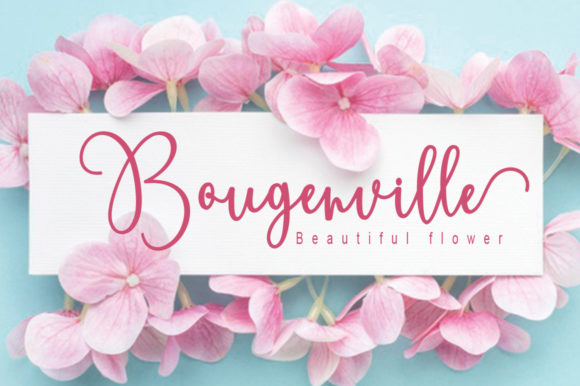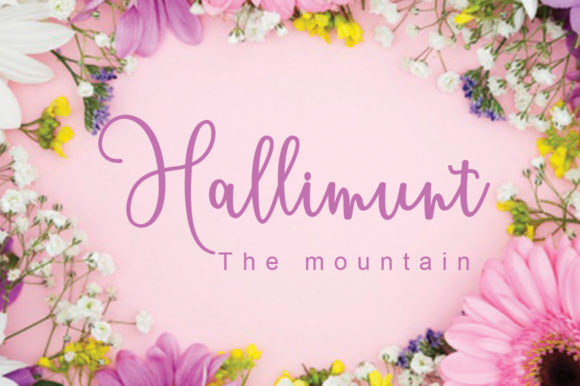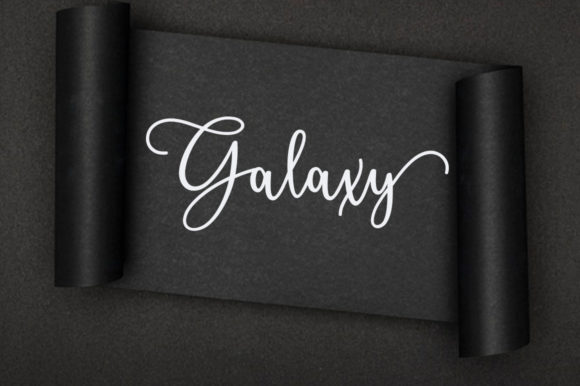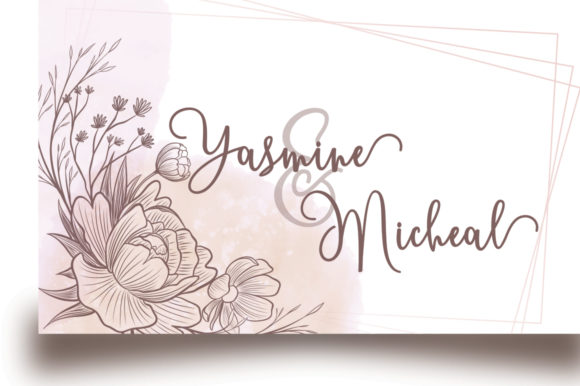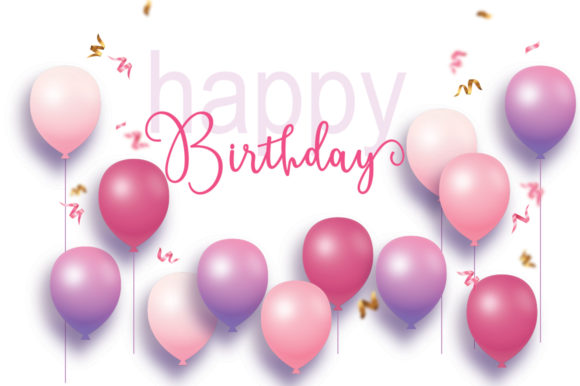
Eminent Font: Elevate Your Designs with Elegance and Sophistication
Are you looking for a font that exudes elegance, sophistication, and a touch of modernity? Look no further than Eminent Font, a beautiful handwritten font that is sure to take your designs to the next level. In this article, we’ll dive into the features and benefits of Eminent Font, and explore how it can help you create stunning projects that leave a lasting impression.
What is Eminent Font?
Eminent Font is a gorgeous, flowing handwritten font that is perfect for designers, crafters, and anyone looking to add a touch of class to their projects. With its elegant and sophisticated design, Eminent Font is ideal for a wide range of applications, from wedding invitations and stationery to branding, packaging, and digital designs.
One of the standout features of Eminent Font is its PUA (Private Use Area) encoding. This means that you can easily access all of the font’s glyphs and swashes, giving you maximum flexibility and creative control. With PUA encoding, you can mix and match different glyphs and swashes to create unique and eye-catching designs that showcase your personality and style.
Classy Calligraphic Influences
Eminent Font boasts classy calligraphic influences that evoke a sense of tradition and heritage. The font’s flowing lines and elegant curves are reminiscent of traditional calligraphy, yet it also has a fresh and contemporary feel that makes it perfect for modern designs. Whether you’re looking to create a vintage-inspired design or a modern masterpiece, Eminent Font is the perfect choice.
Contemporary and Fresh
While Eminent Font has clear calligraphic roots, it also has a distinctly modern feel that makes it perfect for contemporary designs. The font’s clean lines, subtle nuances, and flowing curves create a sense of movement and energy that is sure to captivate your audience. Whether you’re designing for print or digital, Eminent Font is the perfect choice for projects that require a touch of sophistication and style.
Eminent Font is a versatile font that is perfect for designers, crafters, and anyone looking to create stunning projects. Whether you’re a professional designer or a hobbyist crafter, Eminent Font is easy to use and provides endless creative possibilities. With its PUA encoding and extensive range of glyphs and swashes, you can experiment with different designs and styles to create something truly unique.
Bring Your Projects to the Highest Levels
With Eminent Font, you can elevate your designs to new heights and create projects that are truly exceptional. Whether you’re looking to create a beautiful wedding invitation, a stylish brand identity, or a stunning digital design, Eminent Font provides the perfect foundation. Its elegance, sophistication, and versatility make it the perfect choice for anyone looking to create designs that leave a lasting impression.
Key Features of Eminent Font
- Elegant and flowing handwritten font
- Classy calligraphic influences with a modern twist
- Perfect for designers, crafters, and DIY enthusiasts
- Endless creative possibilities with extensive range of glyphs and swashes
In conclusion, Eminent Font is a stunning handwritten font that is sure to elevate your designs to new heights. With its elegant and flowing design, PUA encoding, and classy calligraphic influences, Eminent Font is the perfect choice for designers, crafters, and anyone looking to create stunning projects. So why wait? Fall in love with Eminent Font and bring your projects to the highest levels!